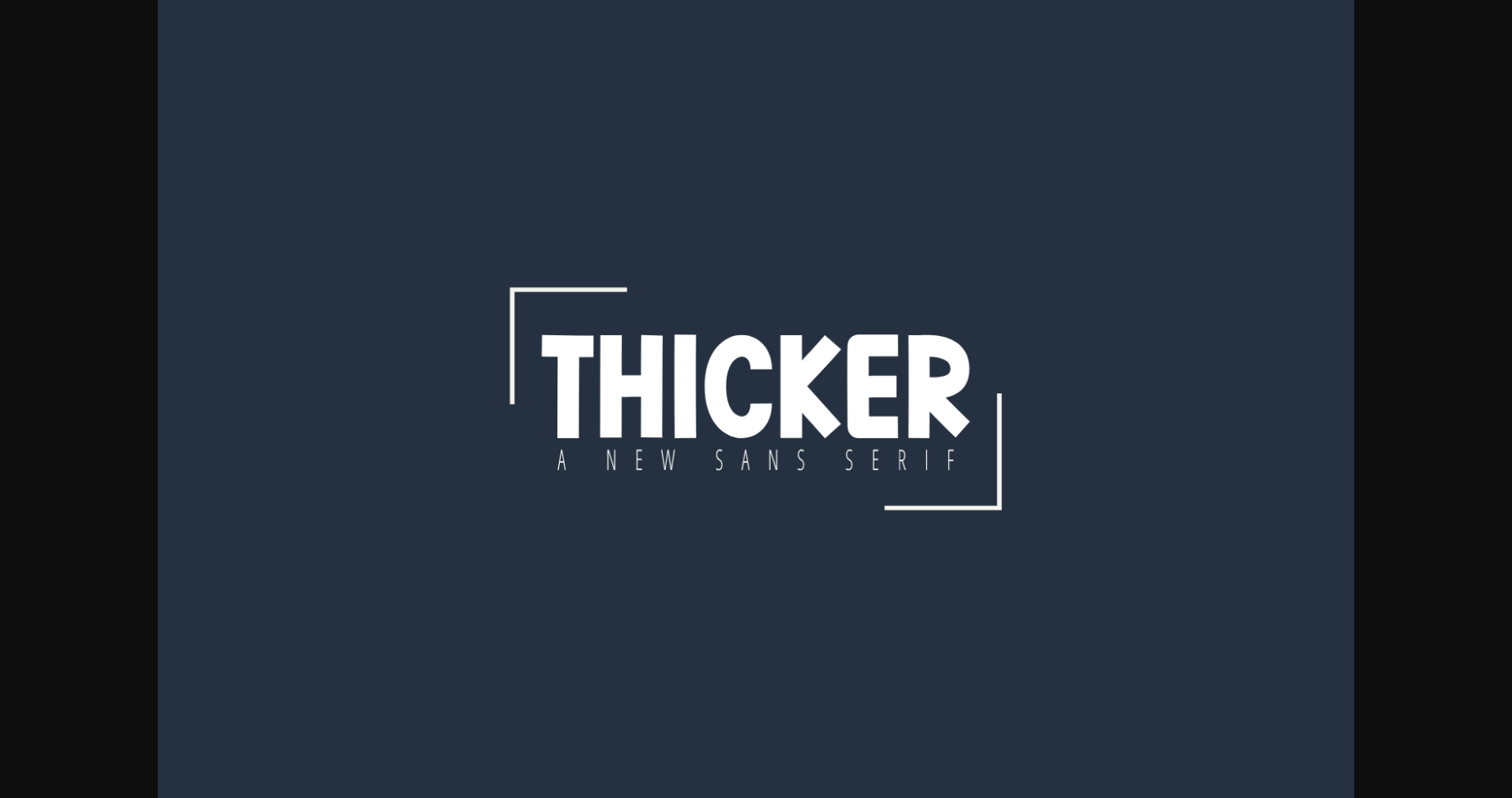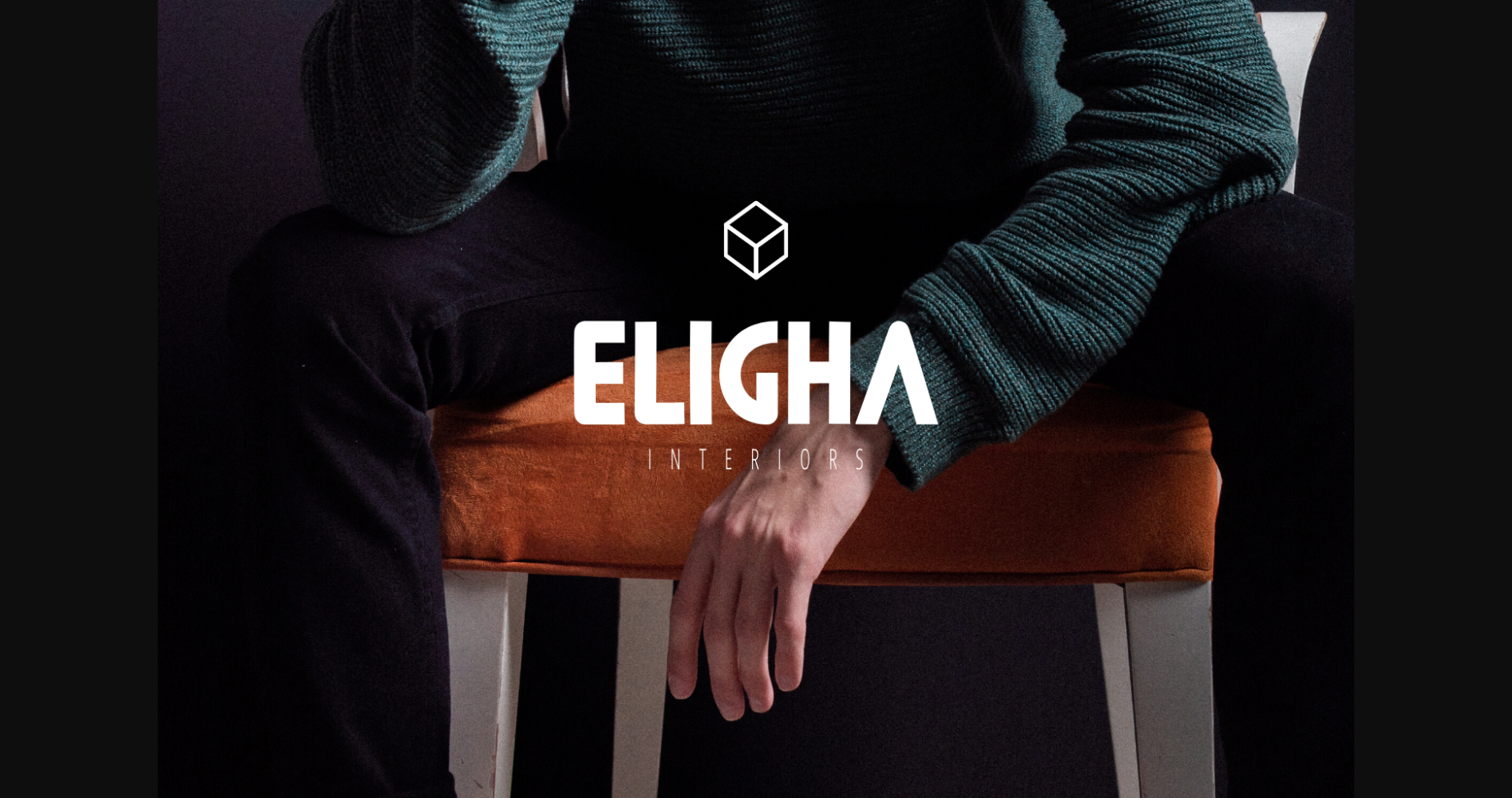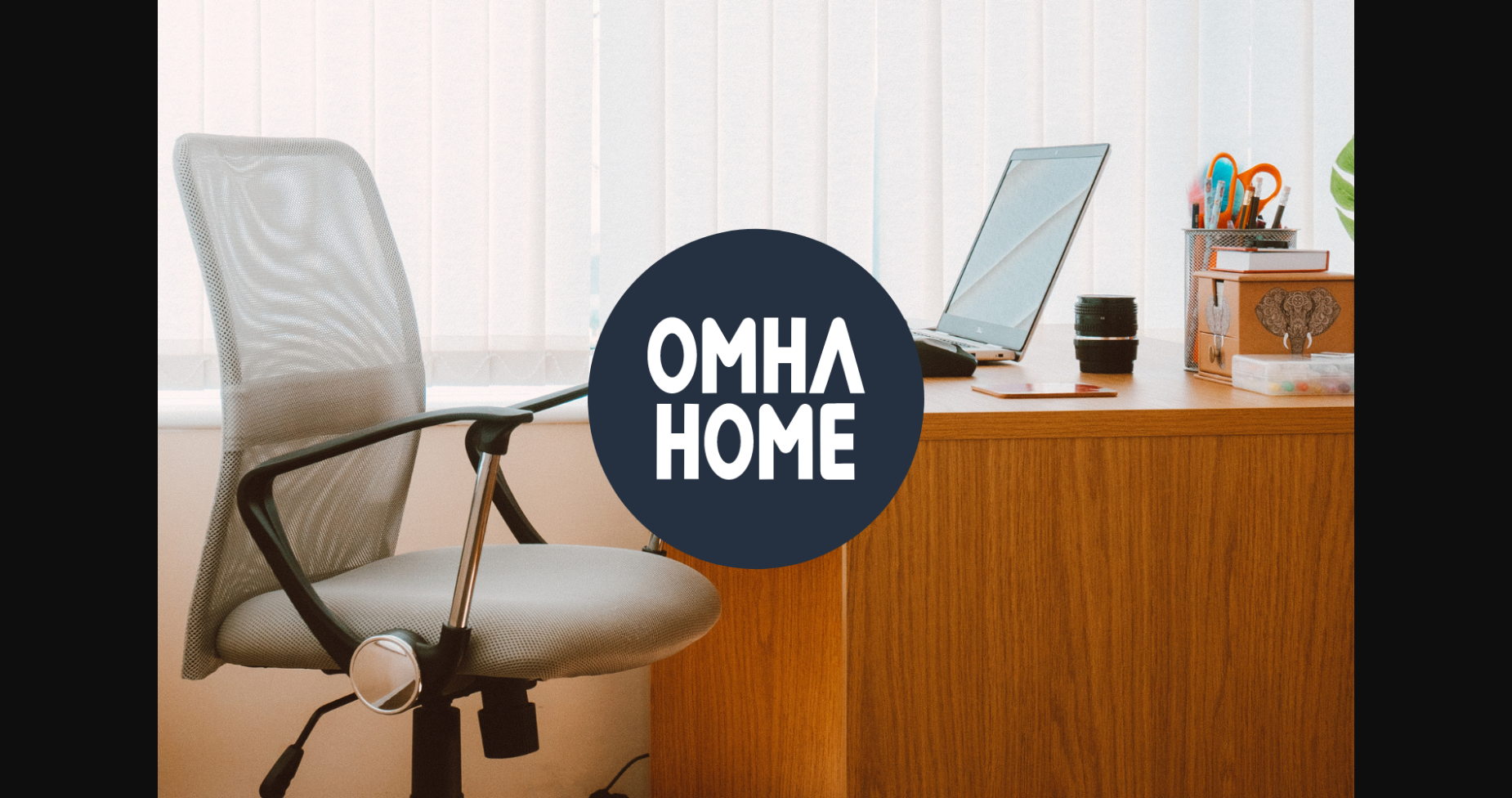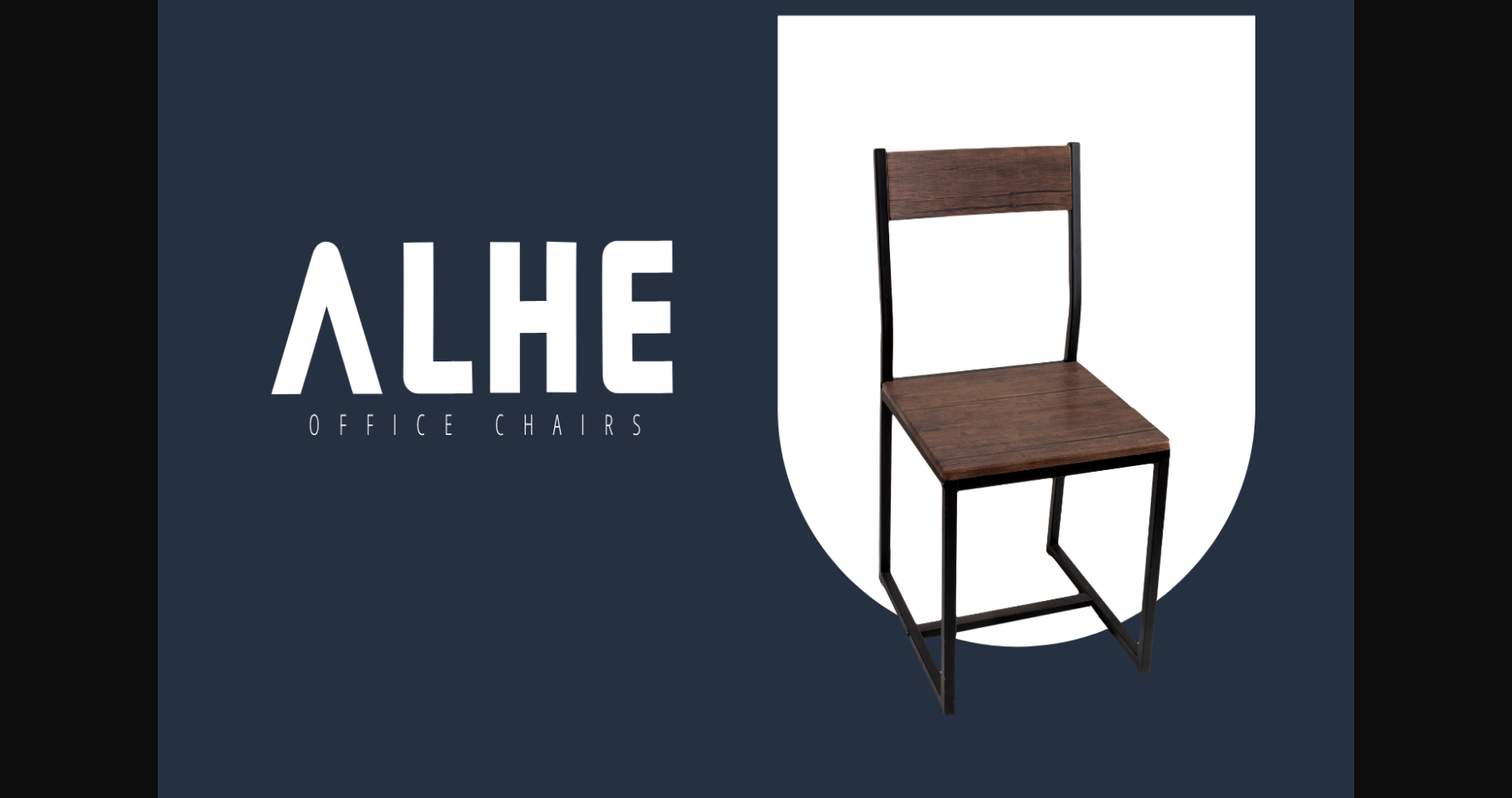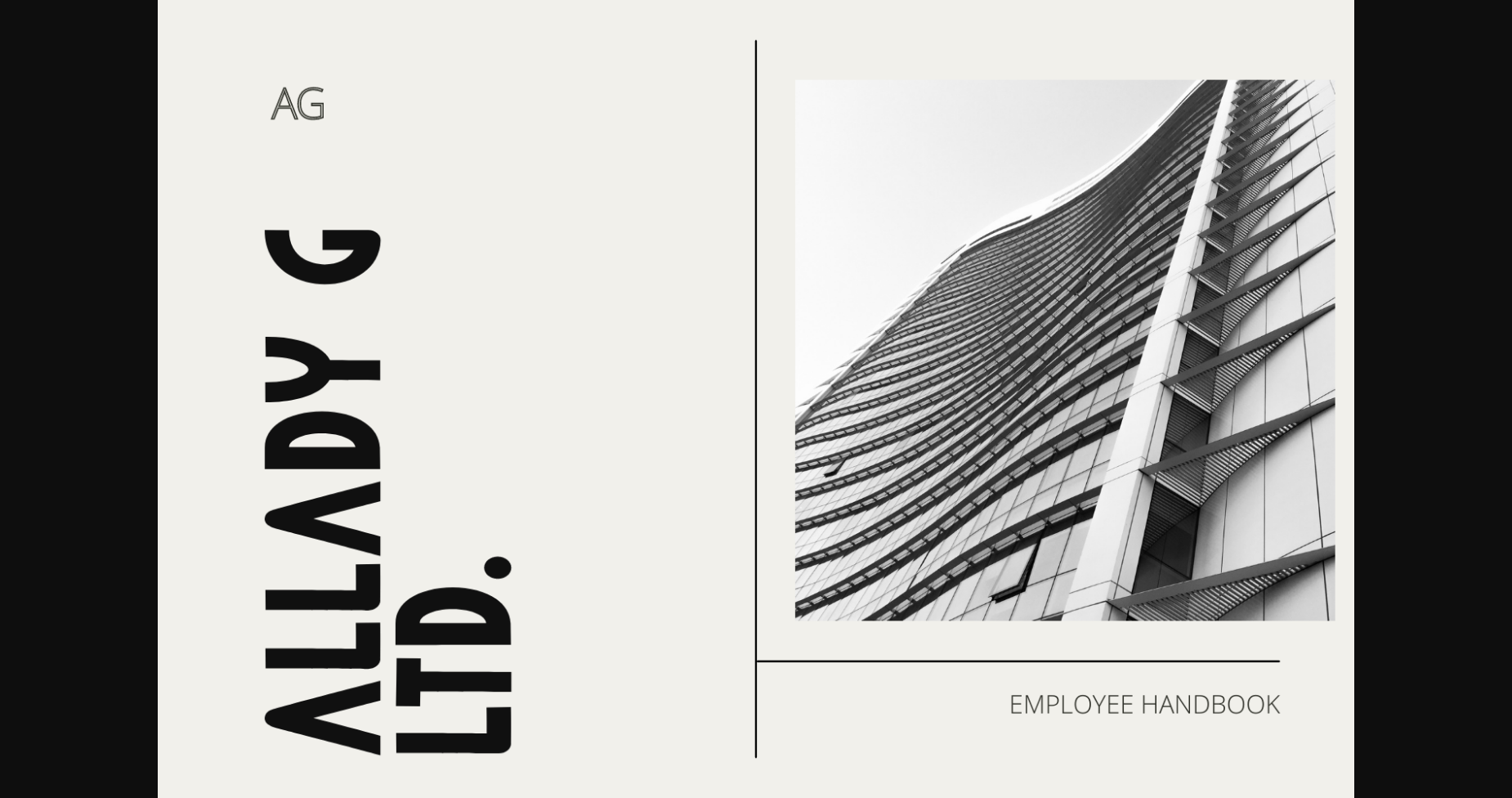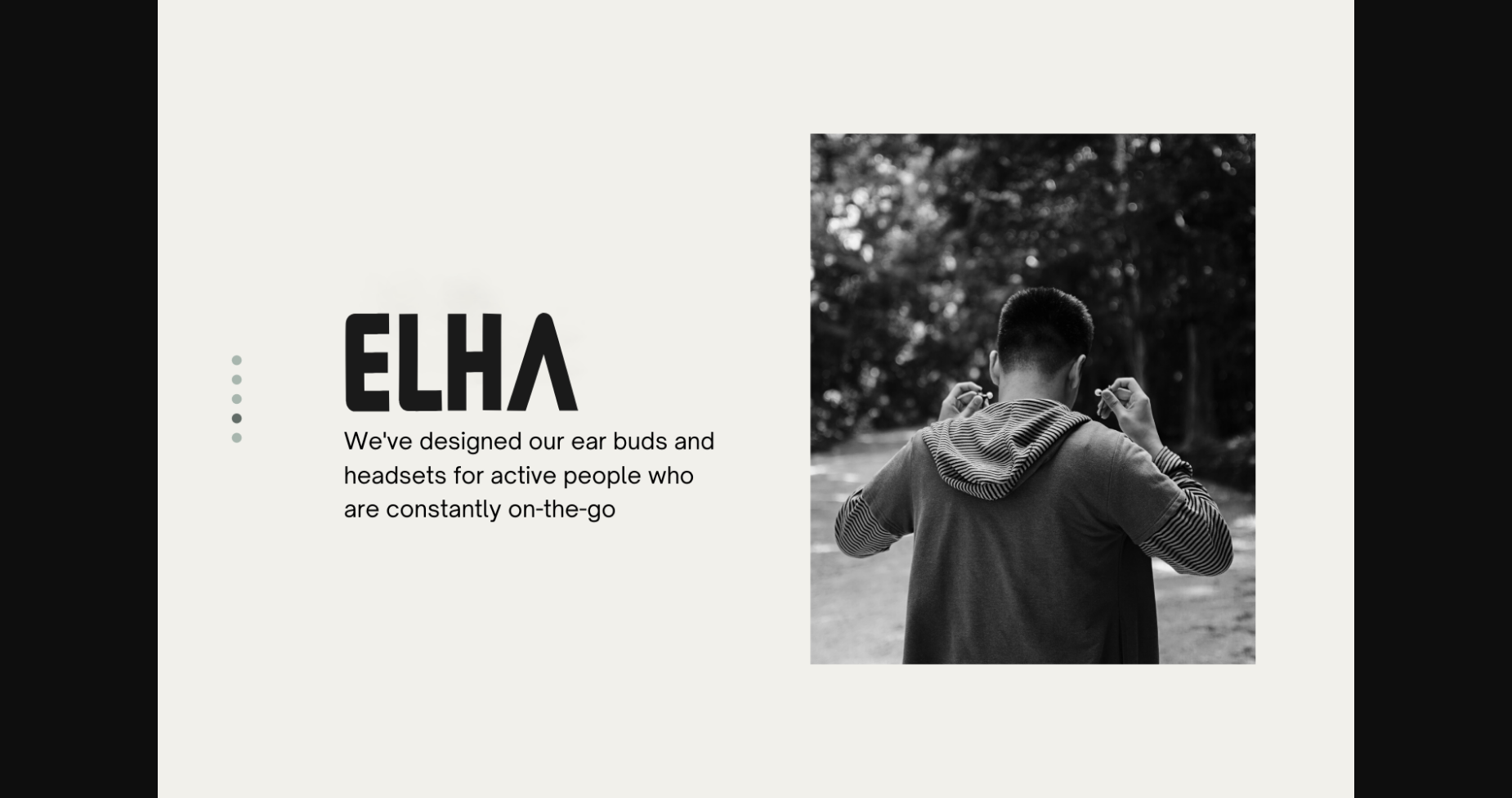
About Thicker Font
Thicker is a cool, bold and thick lettered sans serif font. It can easily be matched to an incredibly large set of projects, so add it to your creative ideas and notice how it makes them stand out!